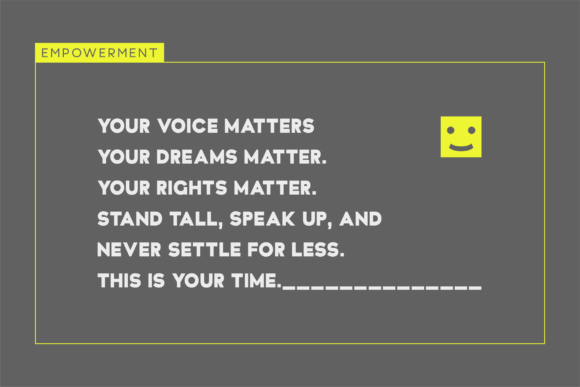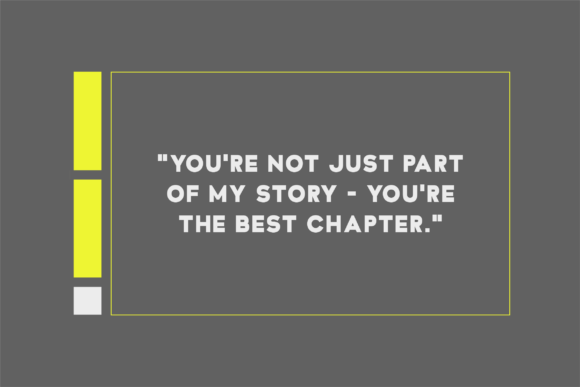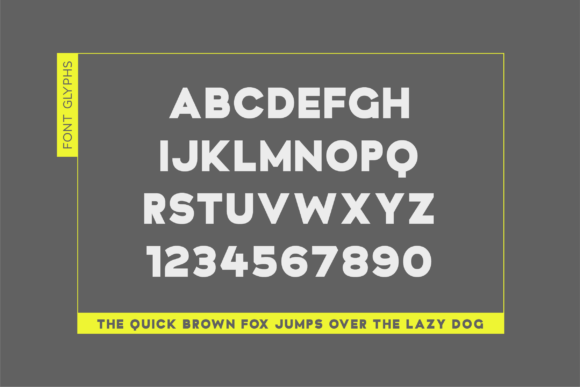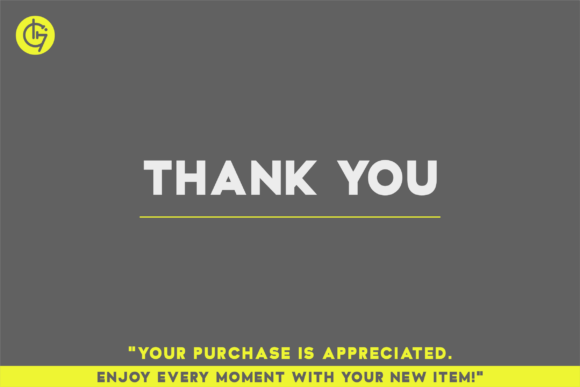
Introducing Grophite – A Modern Sans Serif Typeface
In the world of design, typography plays a crucial role in conveying messages, expressing ideas, and creating lasting impressions. For modern designers seeking a font that embodies strength, authority, and professionalism, Grophite is an exceptional choice. This bold, all-caps sans serif typeface is meticulously crafted to make a statement, boasting clean lines, a minimalist aesthetic, and a versatile design that excels across various mediums.
The Essence of Grophite
Grophite’s design is centered around simplicity and clarity, making it perfect for projects that demand a sense of professionalism and impact. Its sharp, crisp edges ensure that it stands out in any context, whether it’s used for a logo, website, or print material. The font’s strong, geometric structure is not only visually appealing but also highly versatile, seamlessly integrating into digital interfaces and high-end branding projects.
Key Features of Grophite
- All-caps design for maximum impact and emphasis on clarity and readability.
- Modern, minimalist style with a focus on readability, ensuring your message is conveyed effectively.
- Bold, clean lines for a confident and professional look that captures attention.
- Ideal for branding, logos, packaging, and digital design, offering a wide range of applications.
- Perfect for both large-scale headlines and smaller text blocks, providing flexibility in design.
Applications of Grophite
Grophite’s adaptability makes it an invaluable asset for brands, agencies, and designers. Here are some of the areas where Grophite truly shines:
Branding and Logos
In the realm of branding, first impressions are everything. Grophite’s bold and assertive design makes it an excellent choice for logos, ensuring that your brand stands out and communicates its values effectively.
Digital Design
For digital interfaces, readability and clarity are paramount. Grophite’s clean lines and modern aesthetic ensure that your digital content is not only visually appealing but also easy to read, enhancing user experience.
Print Materials
Whether it’s posters, flyers, or brochures, Grophite’s impact is undeniable. Its bold presence ensures that your message captures attention and leaves a lasting impression.
Why Choose Grophite?
In a sea of typefaces, Grophite distinguishes itself through its unique blend of modernity, readability, and impact. Here are a few reasons why designers and brands are gravitating towards Grophite:
Versatility
Grophite’s design is versatile enough to be used across a wide array of projects, from digital platforms to print materials, ensuring consistency in your brand’s visual identity.
Readability
Despite its bold nature, Grophite maintains high readability, making it suitable for both headlines and body text, ensuring your message is conveyed clearly.
Aesthetic Appeal
The font’s modern and minimalist aesthetic appeals to designers looking for a clean, contemporary look that aligns with current design trends.
Grophite is more than just a typeface; it’s a design statement. Its bold, all-caps sans serif design, combined with its clean lines and minimalist aesthetic, makes it a powerful tool for designers and brands aiming to make an impact. Whether you’re working on a branding project, digital interface, or print material, Grophite offers the versatility, readability, and aesthetic appeal to elevate your design. Embrace Grophite for your next project and experience the difference a modern, impactful typeface can make.